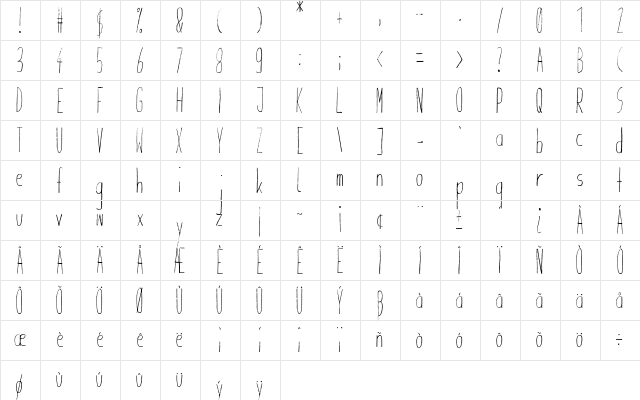
Giraffenhals Condensed
Design Context for Giraffenhals Typeface
Giraffenhals is a composed and adaptable typeface that performs quietly and consistently across a wide range of design contexts. Its narrow stance lets it pack a punch even in space-constrained designs.